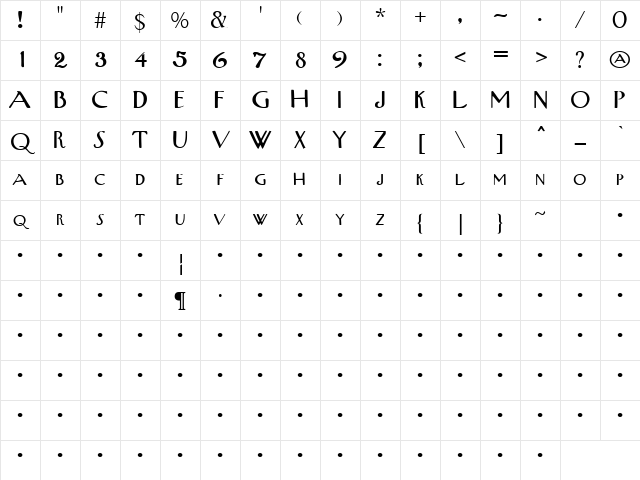
Complete QTWestEnd Regular glyph index. Displaying only characters natively supported by QTWestEnd Regular font.
QTWestEnd is a composed and adaptable typeface that performs quietly and consistently across a wide range of design contexts.